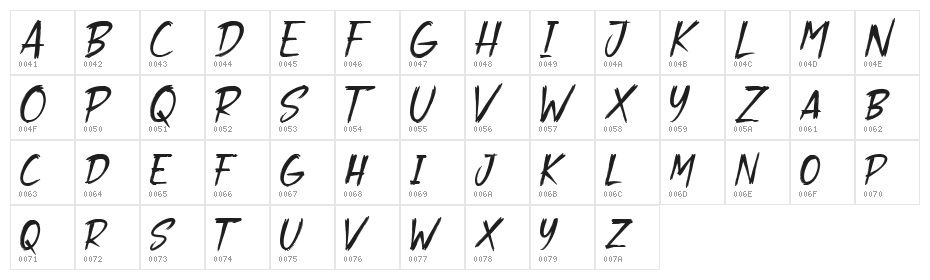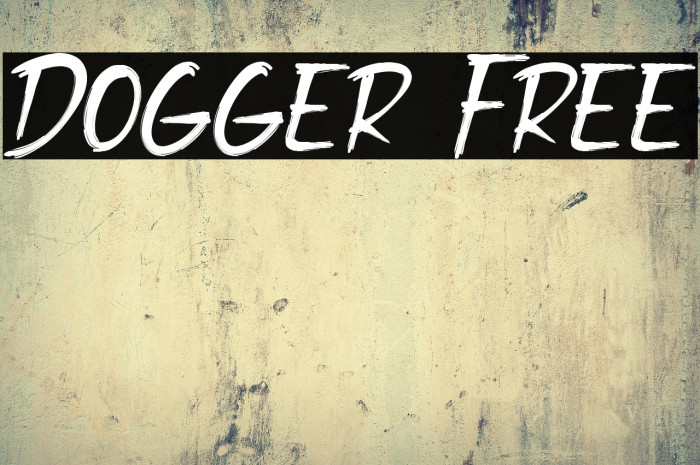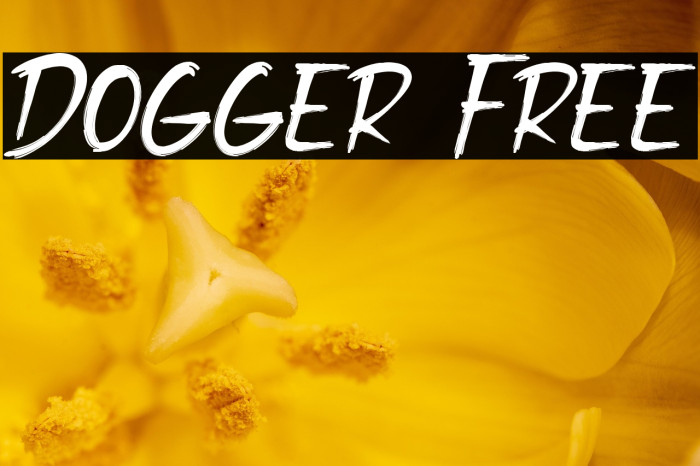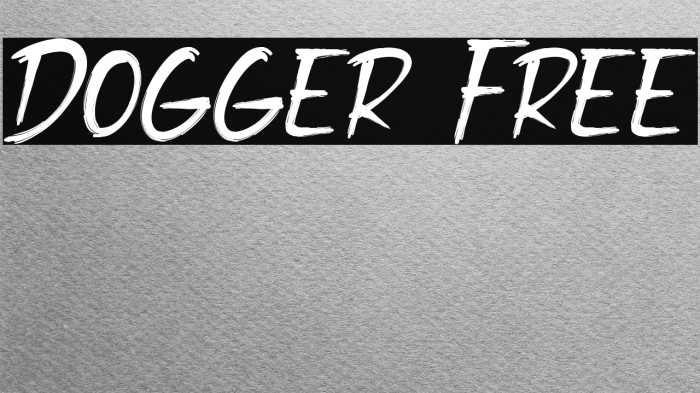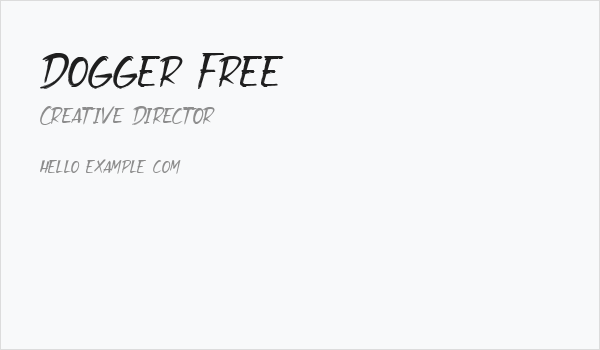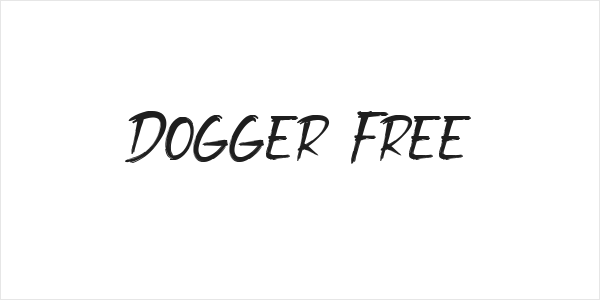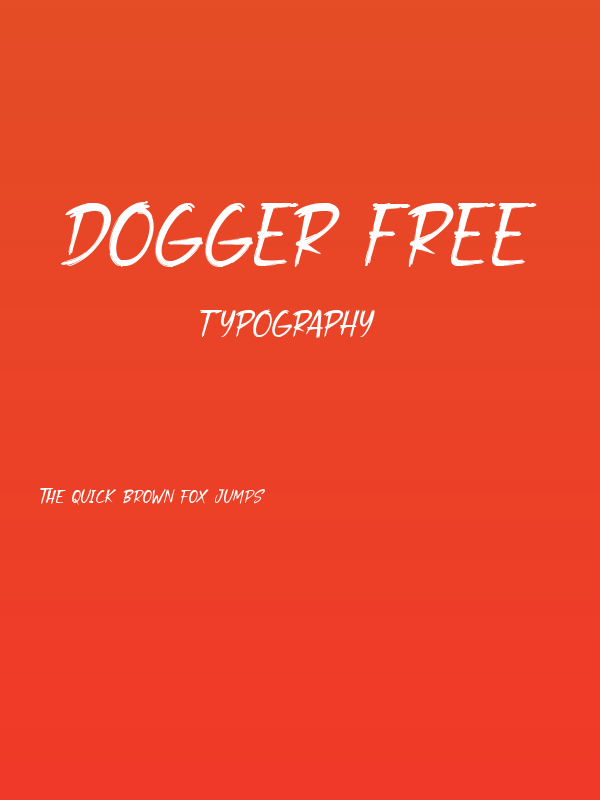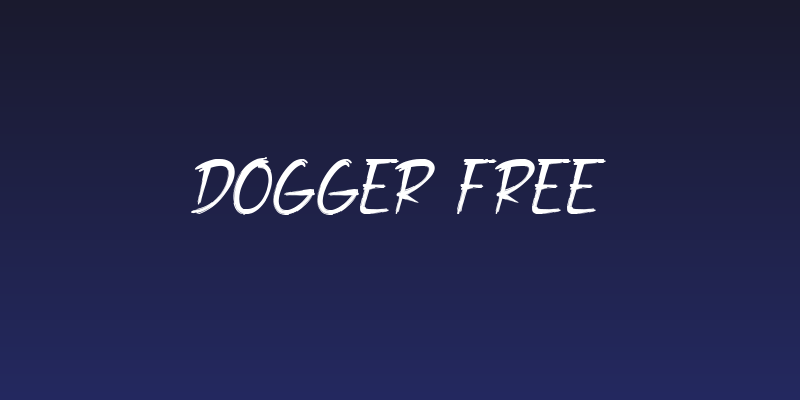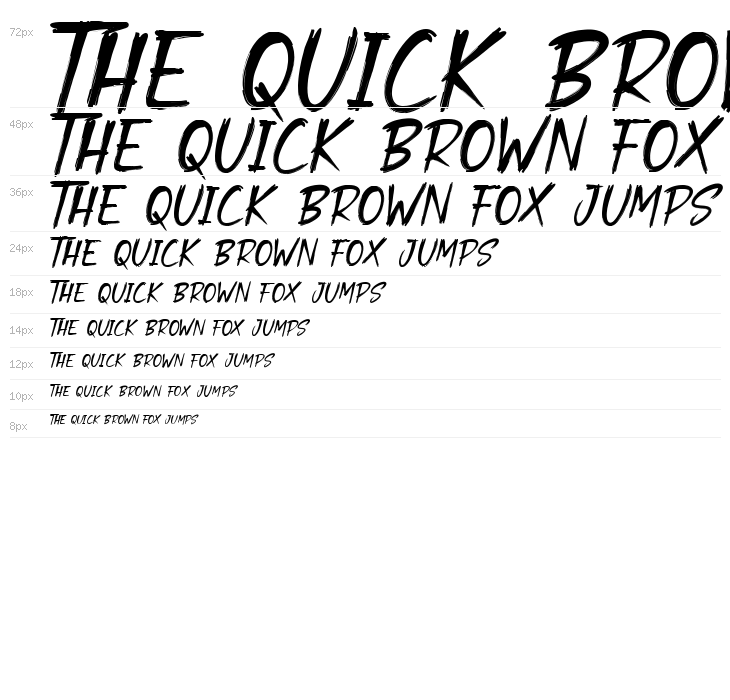
Dogger Free Font
Dogger Free Description
This font features a dynamic and energetic style, characterized by its brush-like strokes and slightly irregular letterforms. The uppercase letters are bold and expressive, with a sense of movement and flair. The lowercase letters maintain the same lively aesthetic, creating a cohesive and visually striking appearance. The font's design is reminiscent of hand-painted signage, offering a sense of authenticity and creativity. Its unique style makes it suitable for projects that require a personal touch or an artistic vibe.
| Proposed Projects | Ideal for branding, posters, album covers, and creative projects that require a bold, artistic touch. |